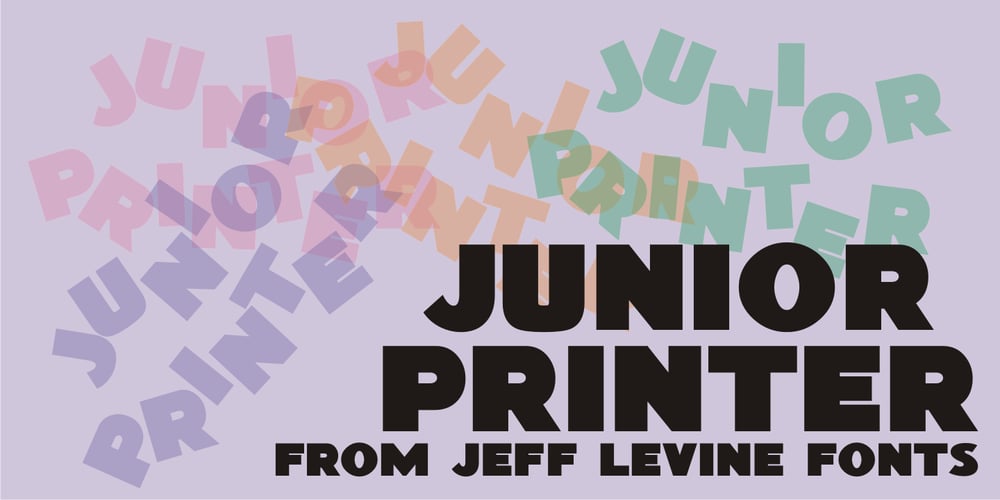
Junior Printer JNL
Junior Printer JNL Font Family was designed by Jeff Levine and published by Jeff Levine. Junior Printer JNL contains 1 styles and family package options. The hand-lettered name of the “Junior Showcard Printer” (a 1930s-era rubber stamp printing set manufactured by the Superior Marking Equipment Company of Chicago) served as the prototype for Junior Printer JNL.